Dive into a world of fonts that burst with personality! These best bubbly fonts typefaces aren’t just letters; they’re vibrant expressions that bring nostalgia, whimsy, and contemporary flair to your designs.
From Bubblicity’s playful ’90s vibe to Orvil’s quirky charm and The Days’ retro nostalgia, each font tells a unique story. Urbanicity channels New York graffiti culture, Bubble Krabby adds psychedelic allure, and Kooky Cloud brings a playful twist.
Whether you’re after nostalgia or a modern edge, these fonts turn letters into visual tales. They inject personality and charm, transforming any project into a captivating design canvas.
Bubblicity – Playful Bubble Font Family
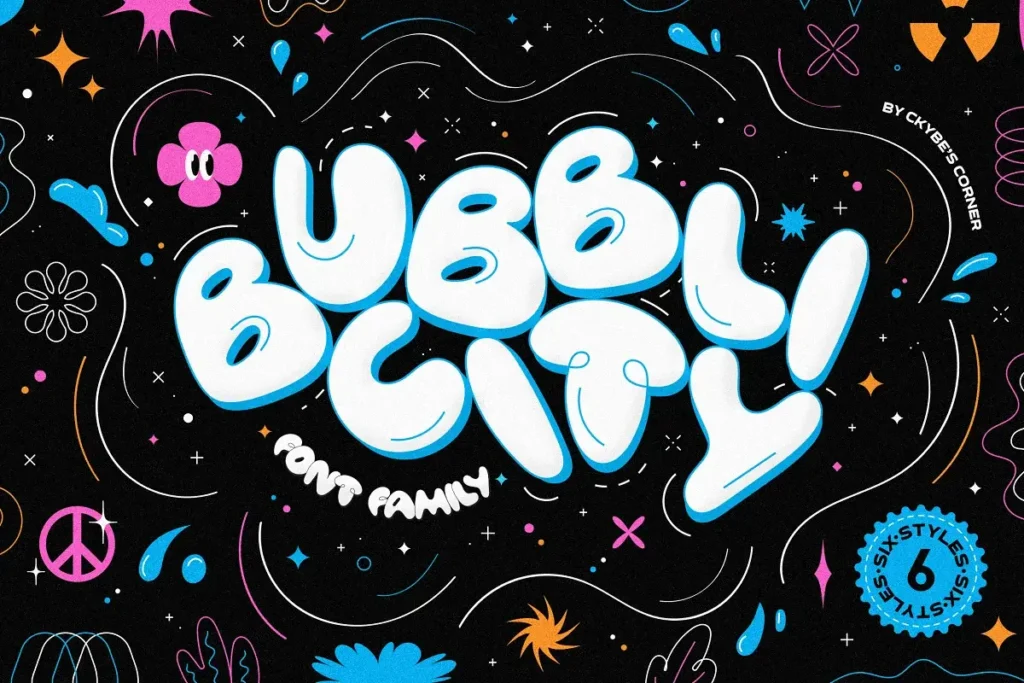
Bubblicity is a vibrant font family that captures the playful essence of the 90s and 2000s! With six styles, including colorful variations, it blends bubble-inspired designs and street graffiti elements. Perfect for posters, social media, invitations, and logos, this font adds a fun, nostalgic touch to your projects. Inject some retro charm and artistic flair into your designs with Bubblicity!
Orvil – Quirky Bubble font
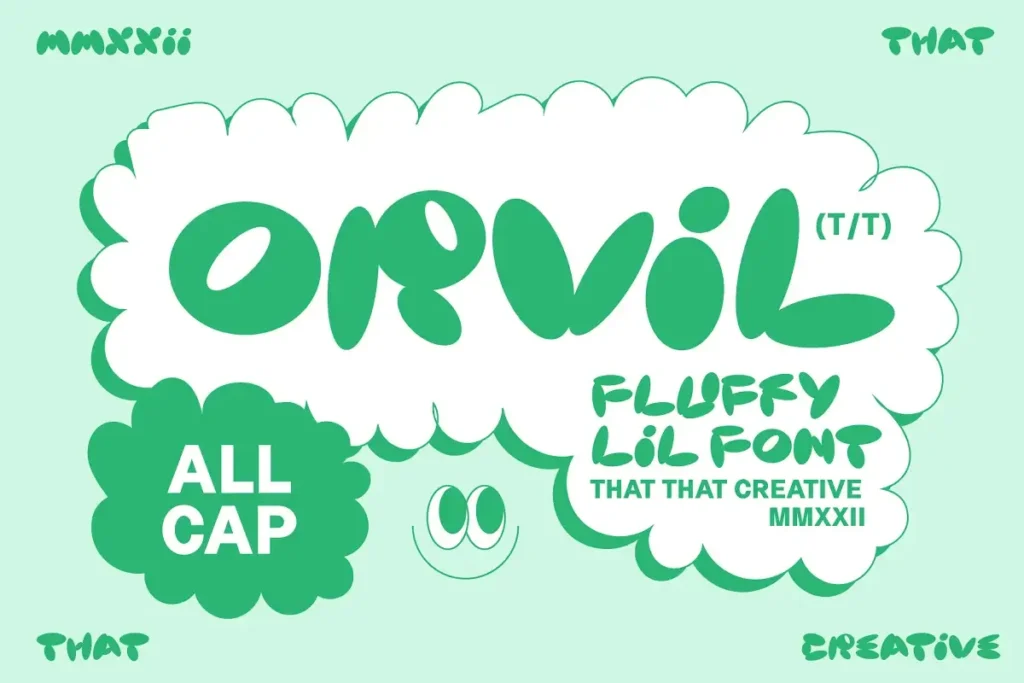
Introducing Orvil Bubble Font: A playful, bold display font that adds whimsy to your designs! Perfect for magazines, posters, logos, branding, and Instagram infuse your projects with its quirky charm. Pair with Neuething Sans Family for a sleek, captivating look. Add a pop of personality to your creations!
Simply Kind – Bubble Font
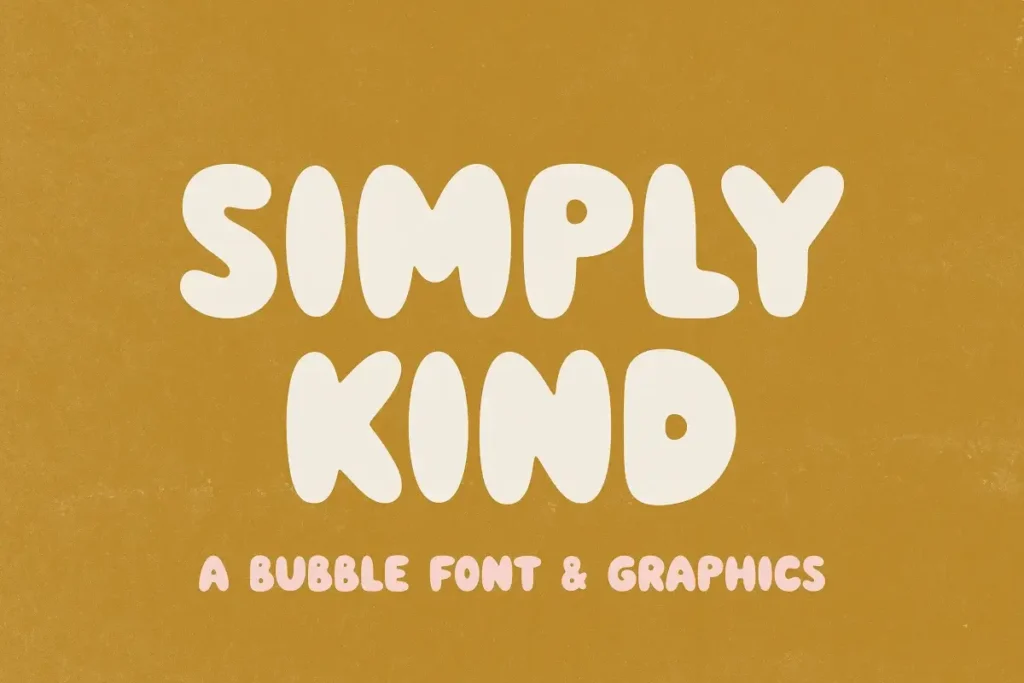
Introducing “Simply Kind” a fun bubble-style font with trendy doodle graphics! Perfect for logos, branding, packaging, apparel, cards, posters, quotes, and social media posts. Get creative and make your designs pop with this versatile and playful font!
The Days – Retro Bubble Letters + Font
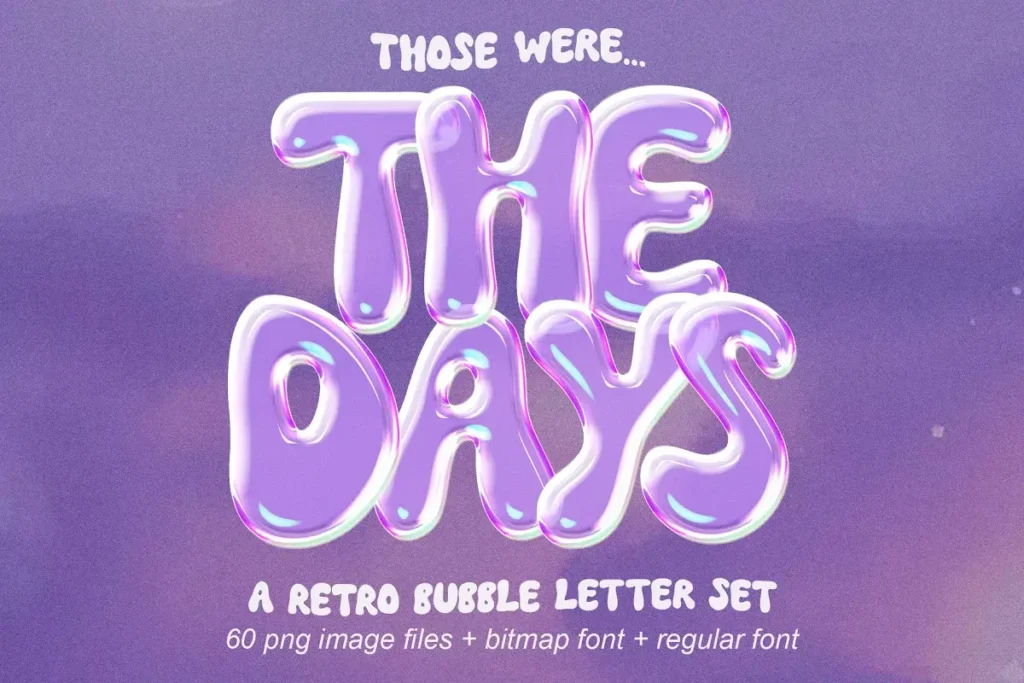
Experience ‘The Days – Retro Bubble Letters + Font’! 🌟 Embrace ’90s nostalgia with this vibrant 3D bubble letter set, perfect for making your designs stand out. Explore the preview pictures for a trip down memory lane, reliving the iconic styles of the era. Whether a design lover or a ’90s kid, add a touch of retro charm to your projects!
Choret Fudyng Bubble Typeface
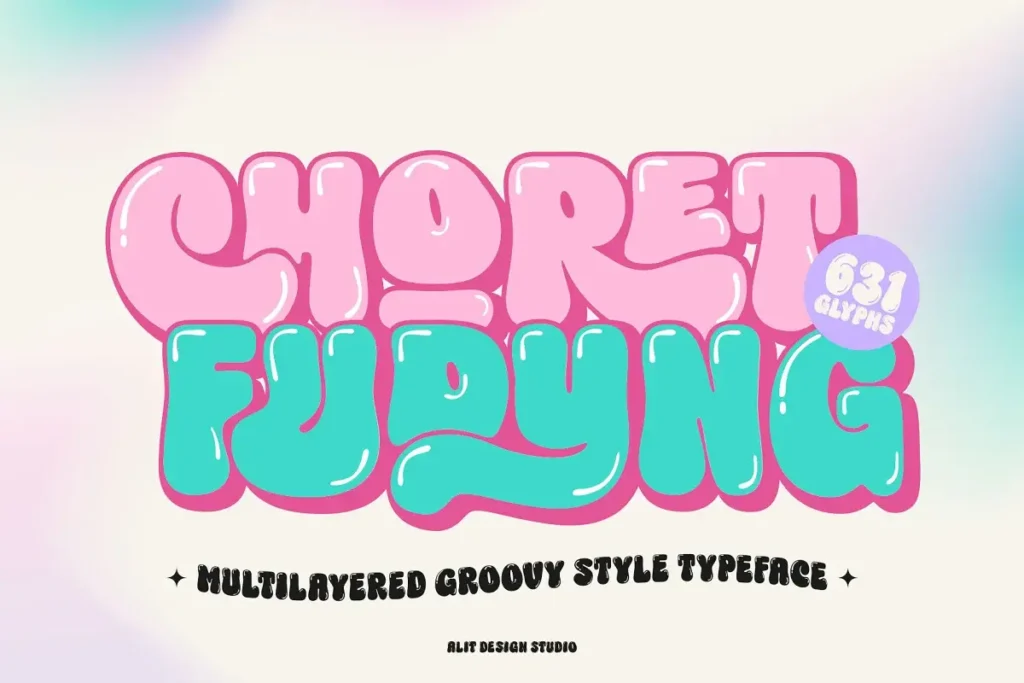
Introducing Choret Fudyng—a captivating Bubble-style font family designed to elevate your designs! With enchanting 3D, classic Regular, and elegant Light variants, this font breathes life into logos, posters, and social media graphics.
Meticulously crafted letters ensure a harmonious look while offering full PUA Unicode support for diverse characters and multilingual usage. But its true magic lies in the extensive ligature options, enhancing your designs with seamless connections between characters for an elegant touch. Elevate your typography effortlessly with Choret Fudyng!
KNERD – Sweet Rounded Bubble Font
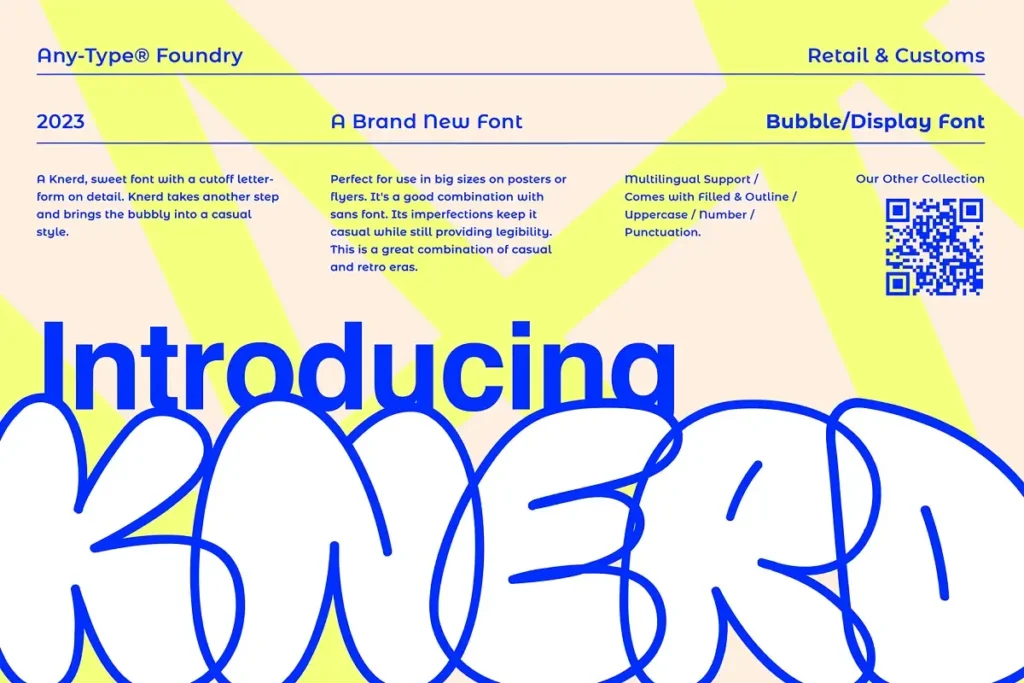
Explore Knerd’s bubbly graffiti-inspired font – casual, playful, and perfect for posters and flyers! Its retro charm pairs flawlessly with sans fonts, offering legibility with a fun, urban edge. Embrace the casual-cool vibe in your designs!
Urbanicity – NY Inspired Bubble Font
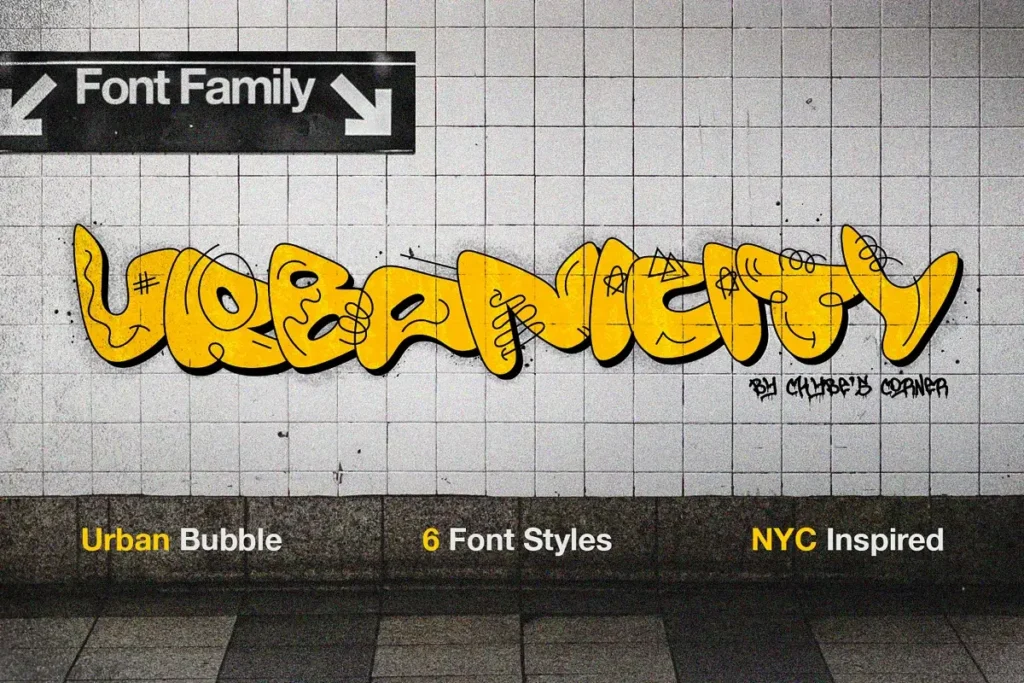
Introducing “Urbanicity” – a vibrant multilingual font family inspired by ’90s New York City graffiti. With six styles, including colorful variations, it’s perfect for posters, cards, invitations, and logos. Get creative with overlapping letters and explore blending options, color changes, and effects like bevel and emboss for unique designs. Infuse your projects with NYC’s graffiti culture using “Urbanicity” for authentic, stylish results.
Bubble Krabby Bubble Display Font
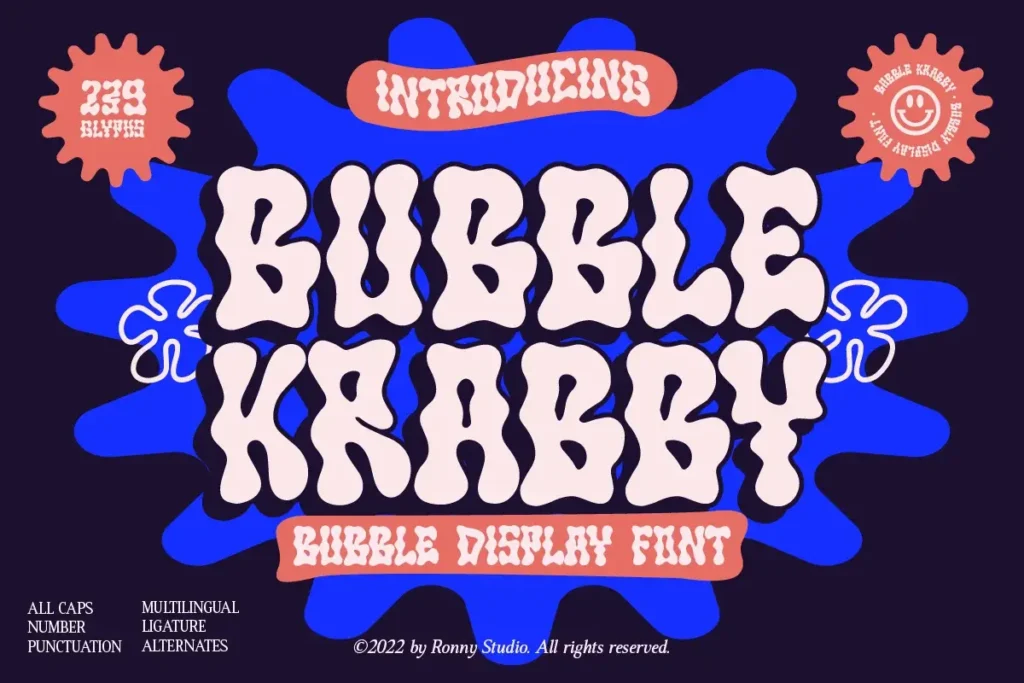
Add a splash of playful nostalgia to your projects with Bubble Krabby font! 🌈✨ This bold and funky typeface brings a psychedelic, handcrafted vibe to posters, magazines, Instagram, logos, games, and branding. Elevate your designs and captivate your audience with Bubble Krabby’s retro charm!
Bobabod – Playful Bubble Font SVG
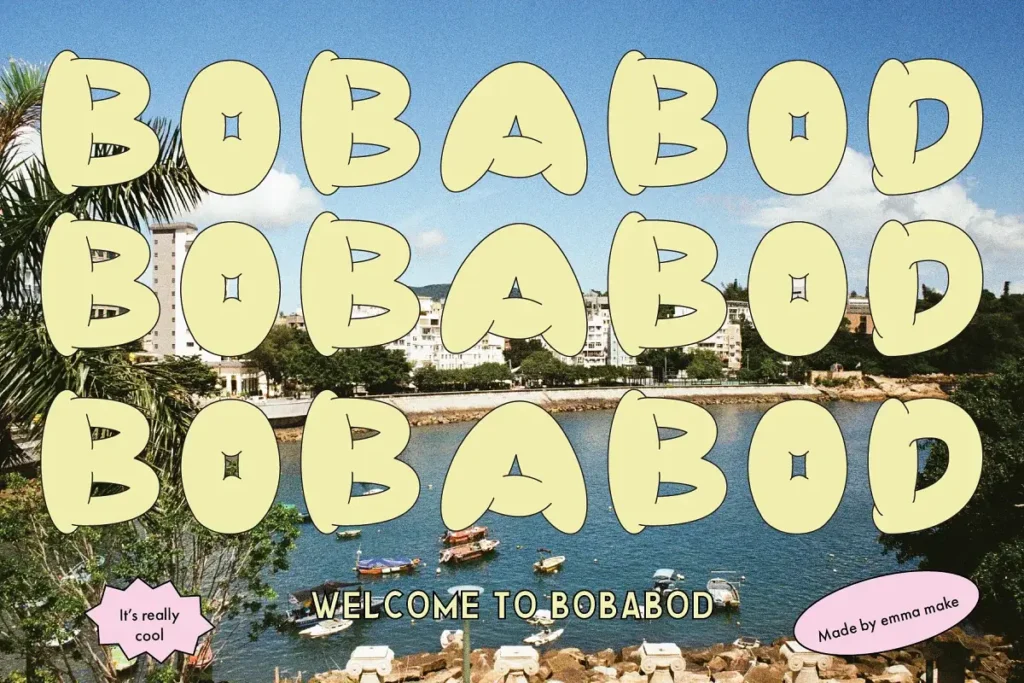
Discover Bobabod, a playful bubble font merging vector smoothness with SVG’s vibrant hues! This OTF file boasts a cheerful yellow shade with an outline. Customize colors in Photoshop or Illustrator. It’s multilingual and works in Canva but without outlines or color adjustments. Unleash your creativity with Bobabod!
Hendrix Bubble Groovy Retro Display Font
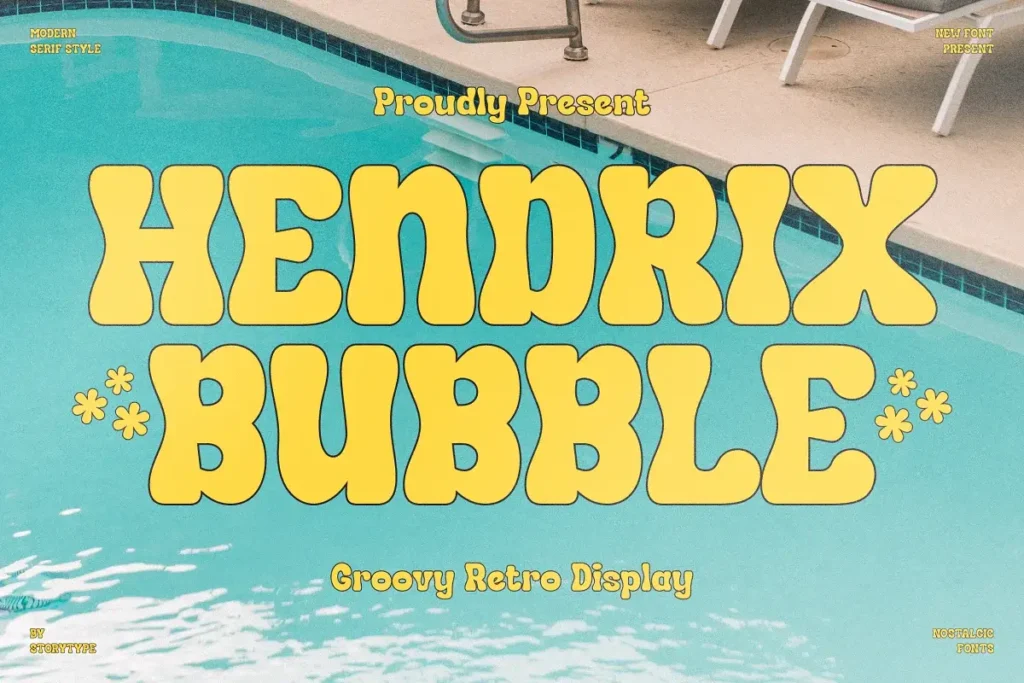
A modern serif font with a unique style, blending classic sophistication with a contemporary edge. Perfect for elegant logos, captivating titles, fashion brands, magazines, clothing, lettering, quotes, and more. Elevate your designs with the chic allure of HENDRIX BUBBLE Typeface a versatile masterpiece for creative excellence.
YOUTH MOJITO – A 3D Bubbly SVG Font
Discover YOUTH MOJITO: Your go-to SVG font for a fresh, bubbly look in designs! Perfect for modern posters, graphics, presentations, websites, and logos. Embrace its uniqueness and elevate your creative game instantly!
Kooky Cloud – Unique Bold Bubble Font
Introducing Kooky Cloud Font! 🌟 This hand-crafted typeface adds a playful touch to your designs with its quirky, bubbly style. Featuring alternate letters for Aa-Zz and special characters, it’s perfect for logos, quotes, art, and more.